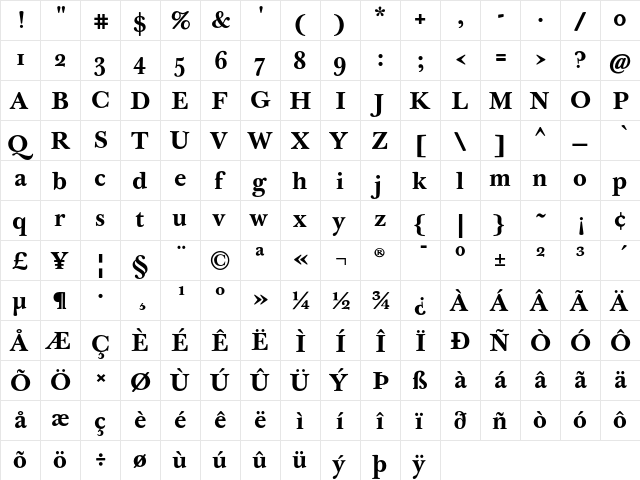
J Baskerville T Med Bold Font Preview
J Baskerville T Med Bold
Design Context for J Baskerville T Med Typeface
J Baskerville T Med is a composed and adaptable typeface that performs quietly and consistently across a wide range of design contexts. Its bold stroke weight gives it real presence on the page.